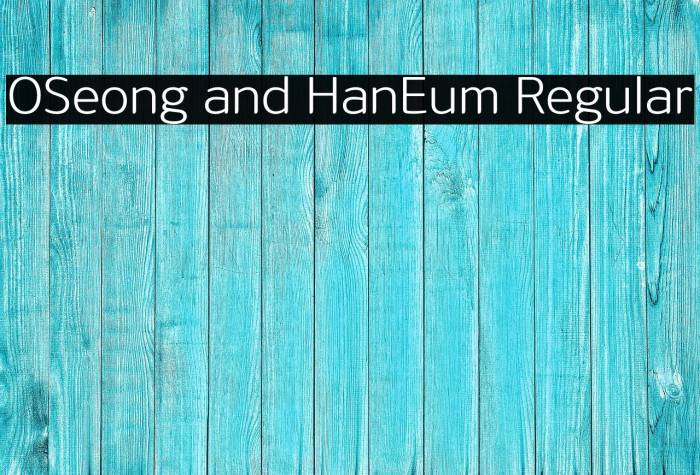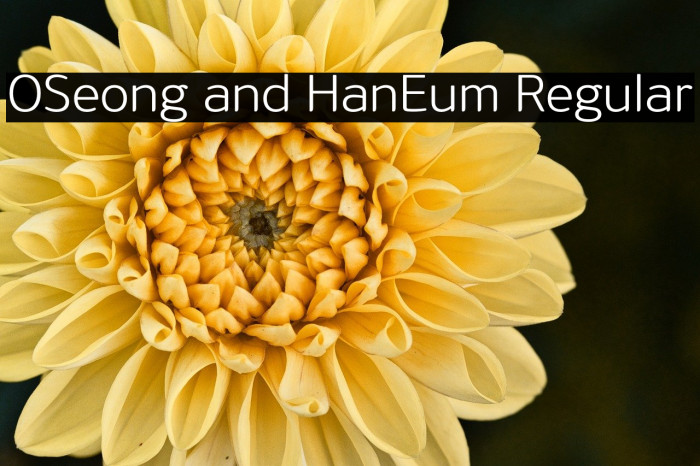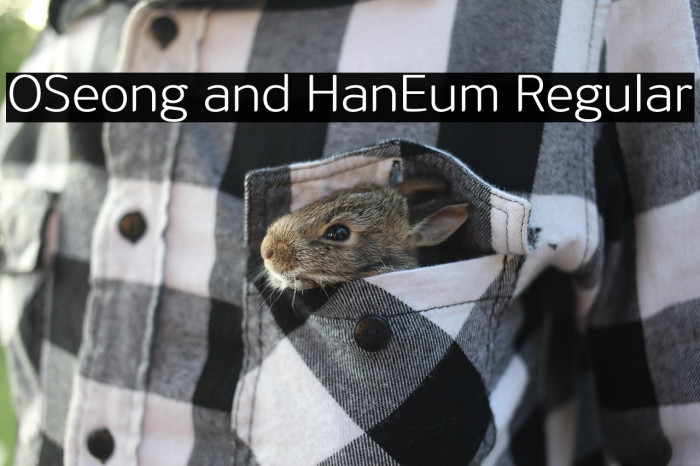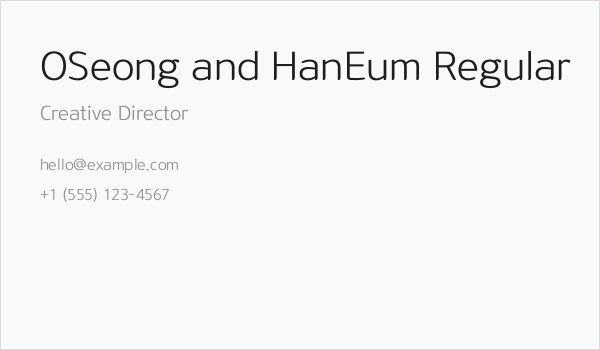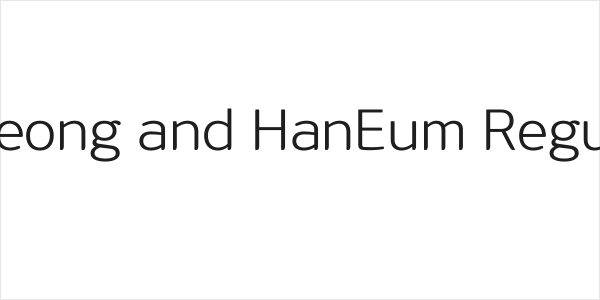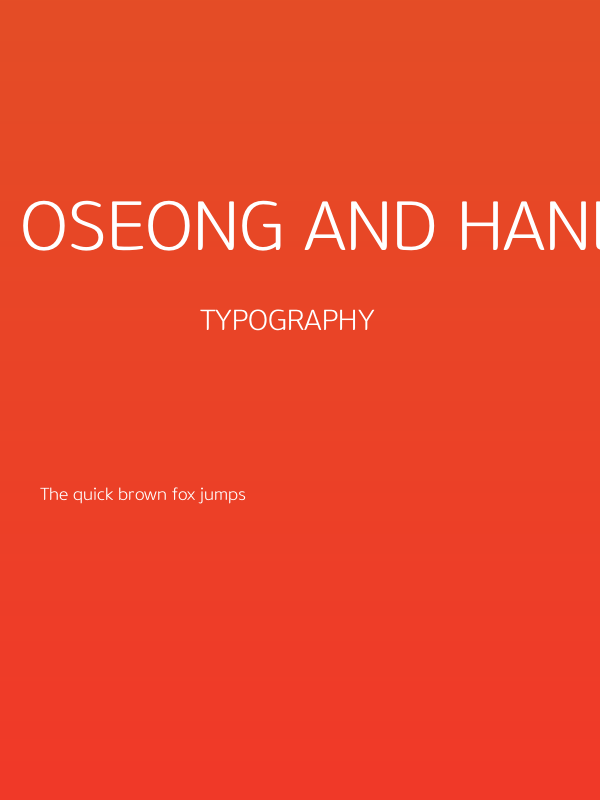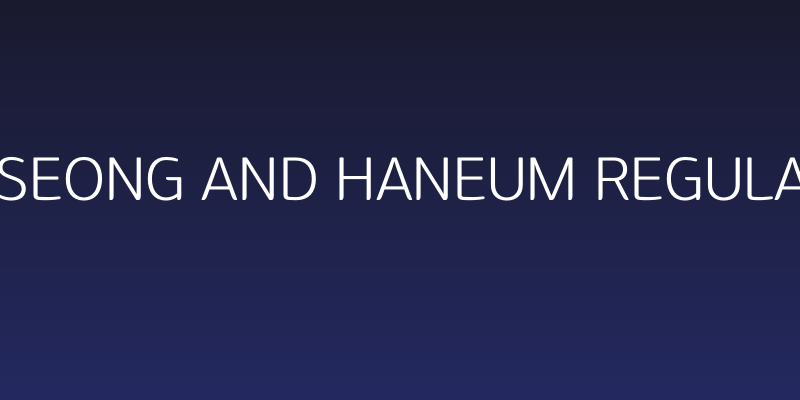
OSeong and HanEum Regular Font
OSeong and HanEum Regular Description
A clean, geometric sans-serif typeface with rounded terminals and consistent stroke width, offering excellent legibility and a modern appearance.
| Overall Style | Modern, Minimalist |
| Use Case | Body text, User interfaces, Branding, Signage |
| Proposed Projects | User interfaces, web design, branding, signage, presentations, educational materials. |